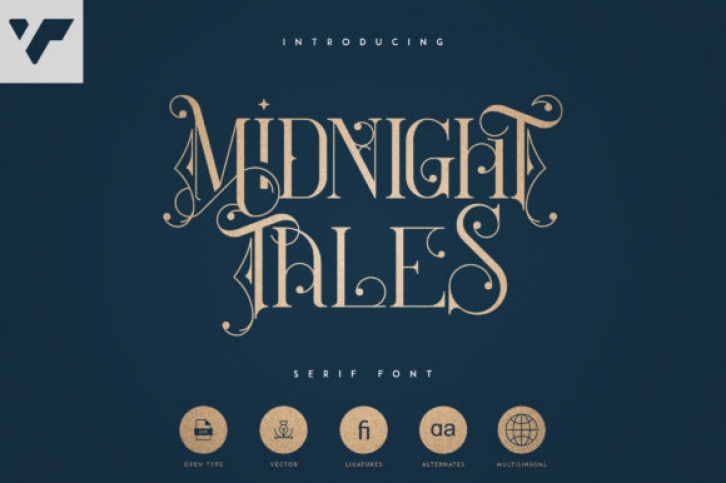
Midnight Tales is a distinct and luxurious serif font. It has an incredibly magical style and it will match a wide range of design ideas, both formal and informal.